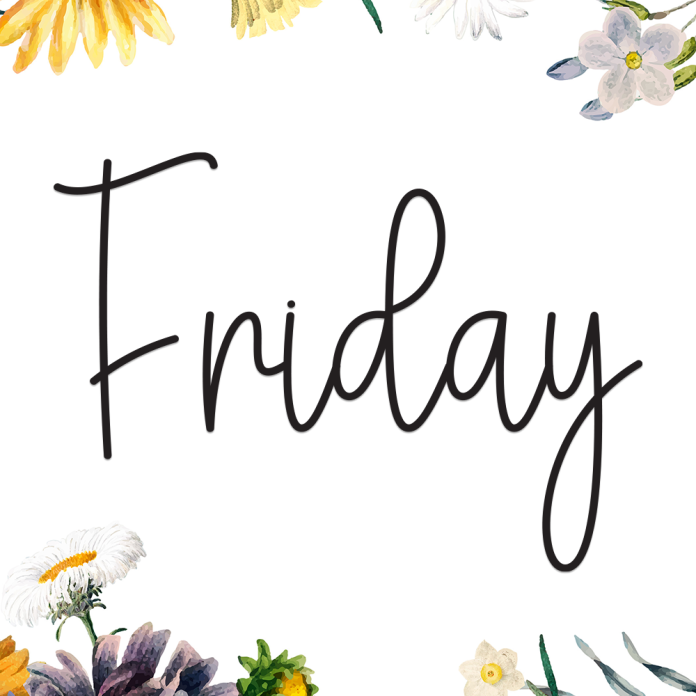
Friday is a cheerful and relaxed handwriting font that captures the spirit of weekends and carefree moments. Its smooth, flowing strokes give a natural handwritten feel, perfect for adding warmth and friendliness to your designs.
Casual and friendly handwriting style
Great for invitations, greeting cards, social media posts, and branding
Smooth letter connections for a natural look
Bring a touch of weekend joy to your designs with Friday.